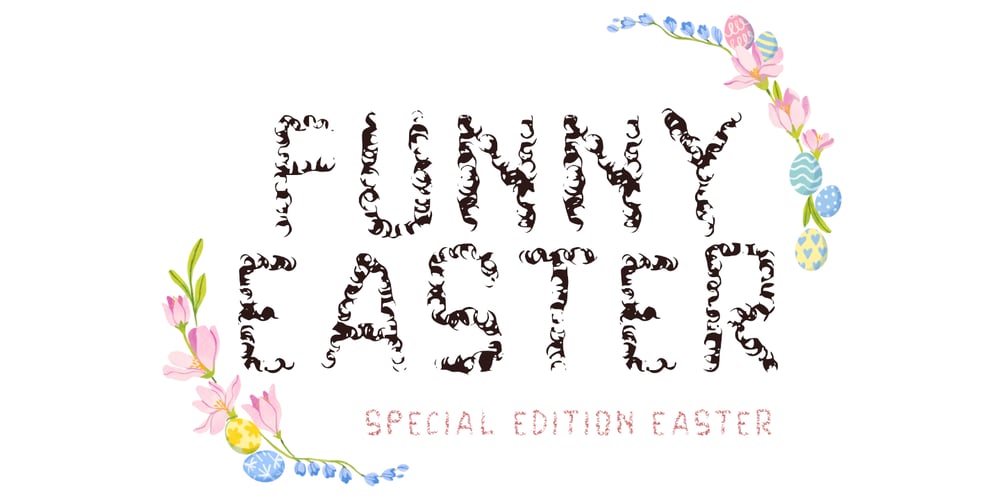
Funny Easter Font Family was designed by Isroni Yoga Prasetya and published by Yoga Letter. Funny Easter contains 1 styles and family package options. “Funny Easter” is a display font created for Easter. This font is very unique with its distinctive shape. This font is equipped with uppercase, lowercase, numerals, punctuations, and multilingual support. It is suitable for Easter, spring, summer, and more.